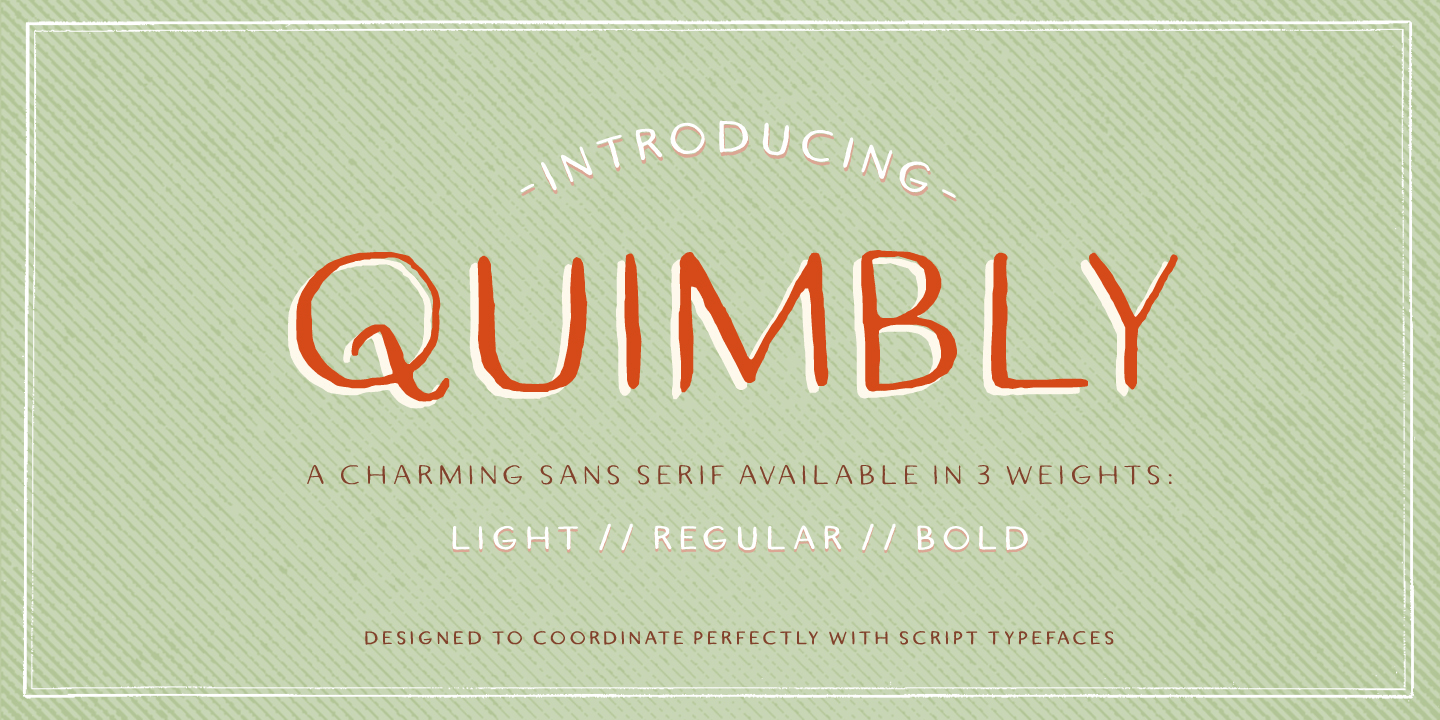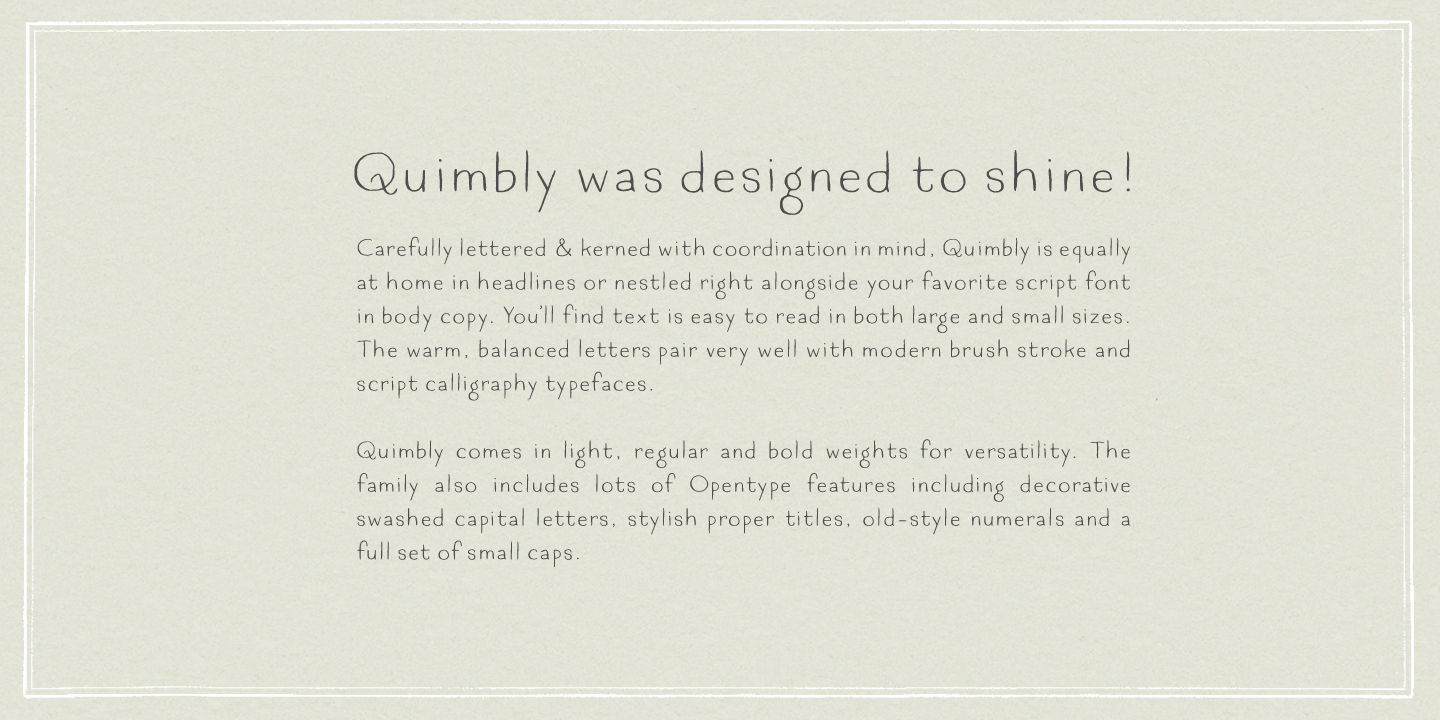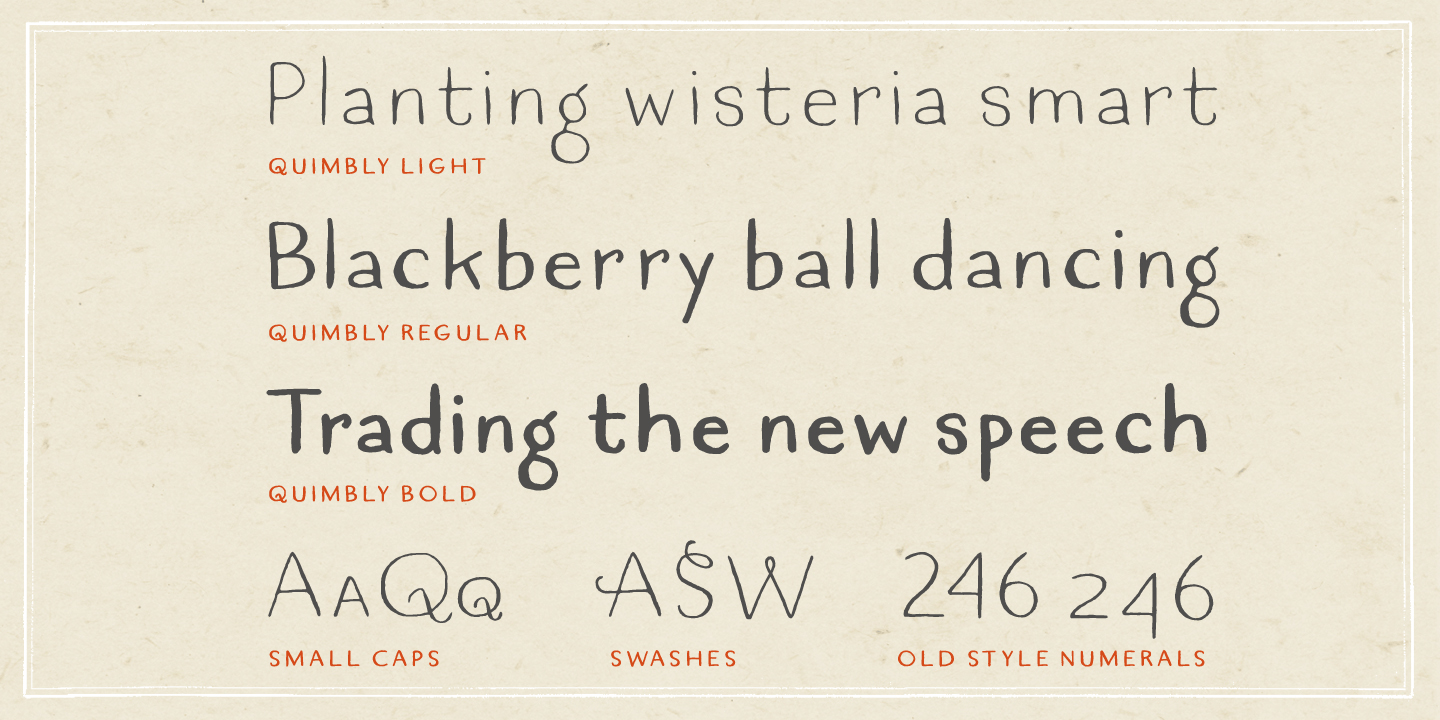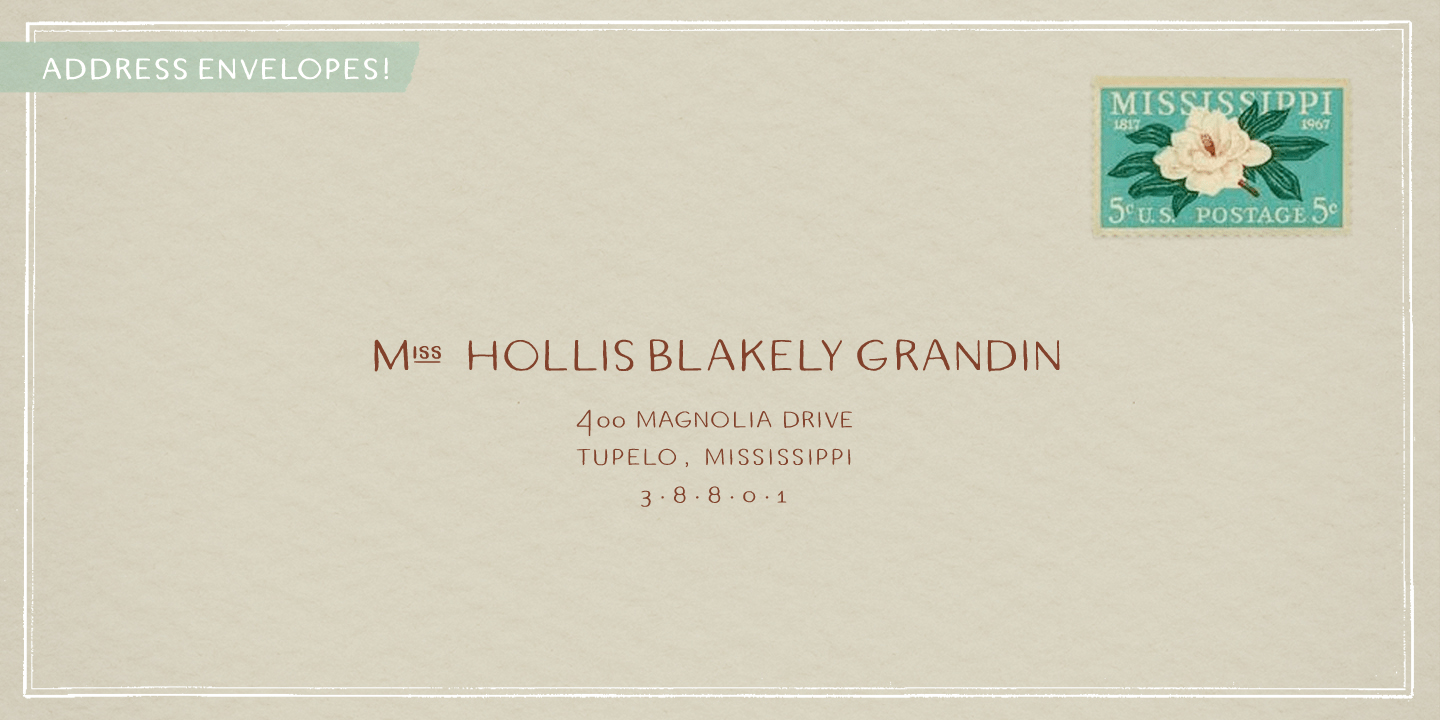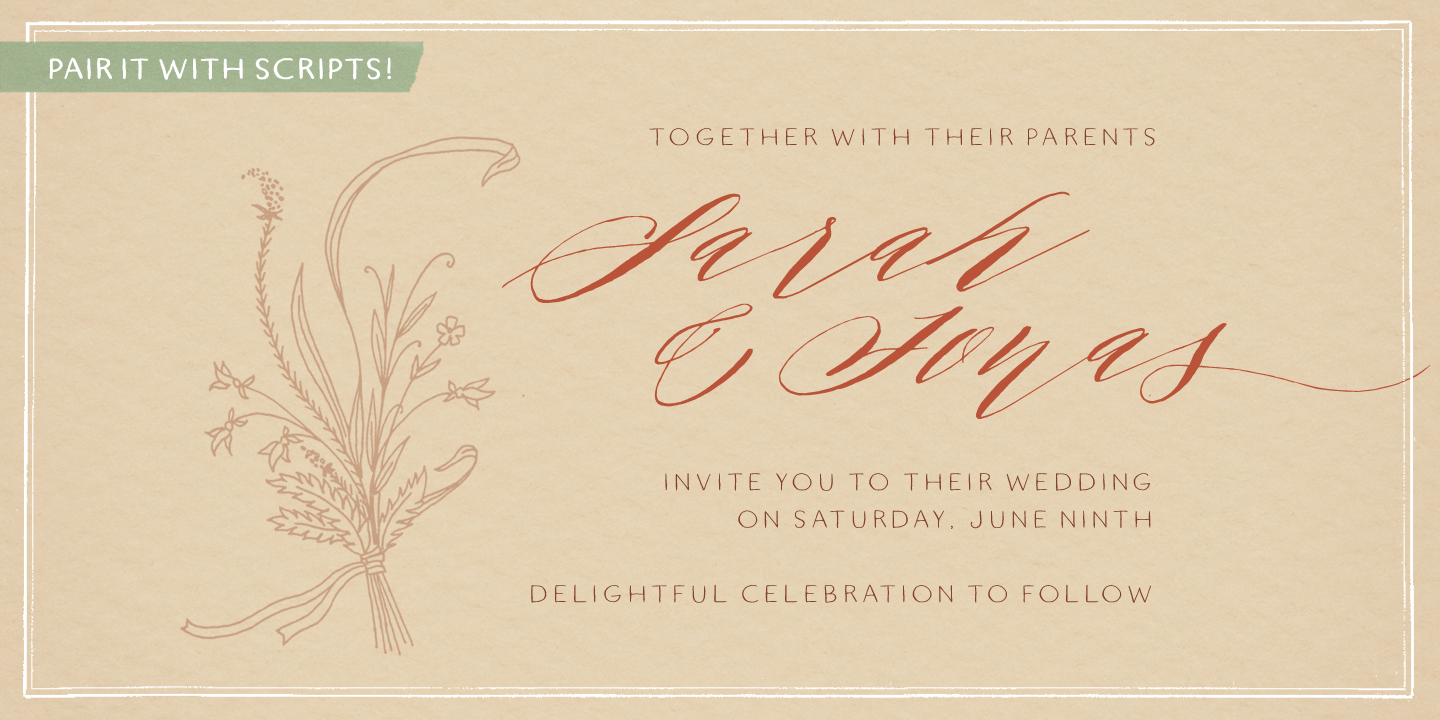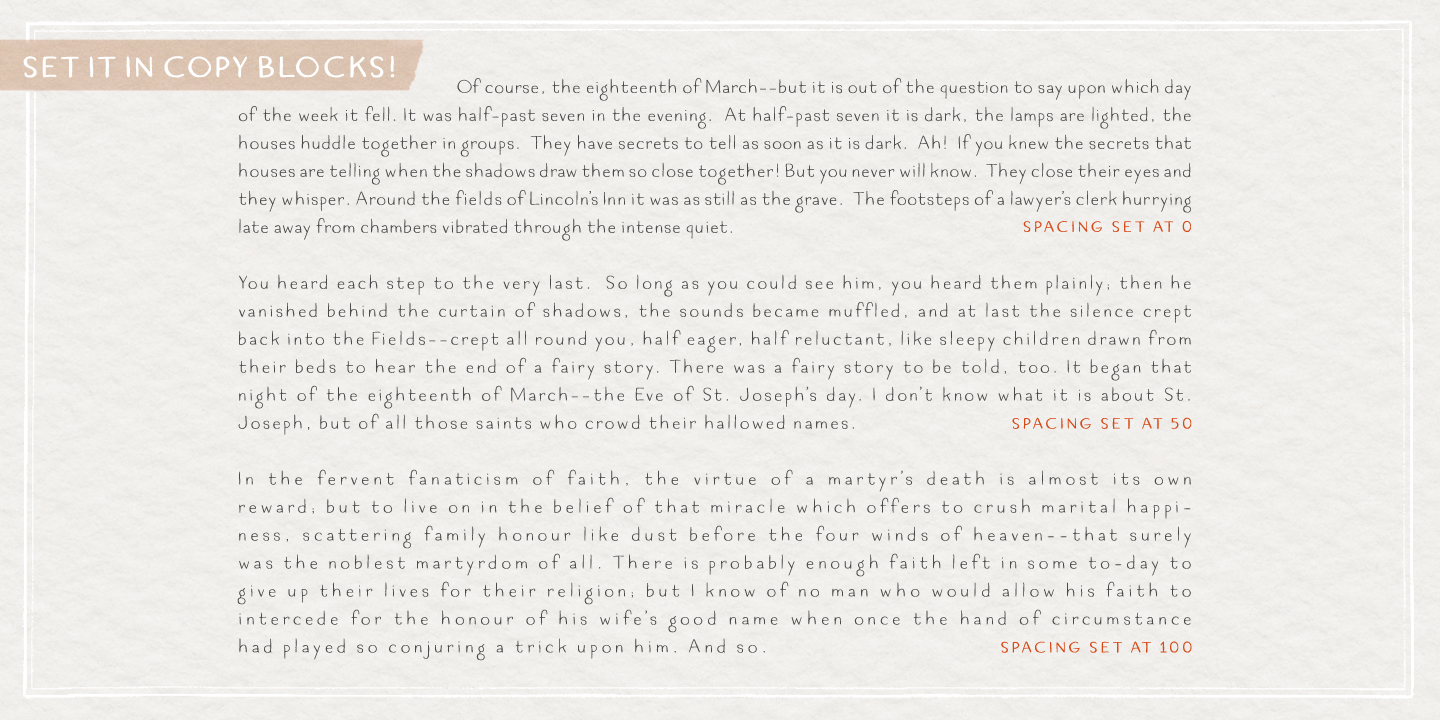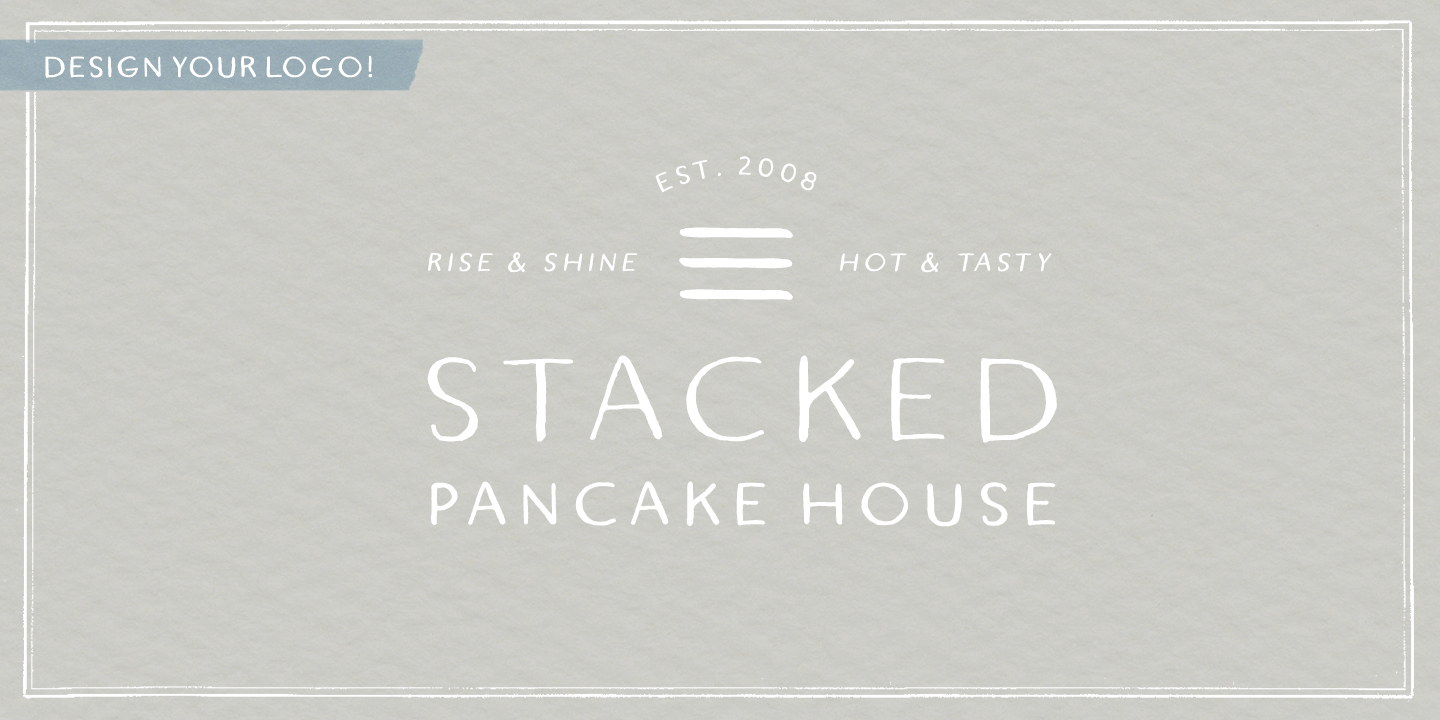
Quimbly
Quimbly was designed to shine! This hand-drawn font family comes in three weights (light, regular and bold) and was carefully created with coordination in mind. Warm, balanced letters pair very well with just about every modern calligraphy typeface. And unlike many other hand drawn fonts, Quimbly's thoughtful kerning means your text is easy to read at all point sizes! You'll find this versatile family is equally at home in everything from large-scale signage to wedding invitations.
Rich Opentype features include decorative swashed capital letters, stylish proper titles, old-style numerals and a full set (uppercase & lowercase) of small caps. Multi-language support is also included in the font.